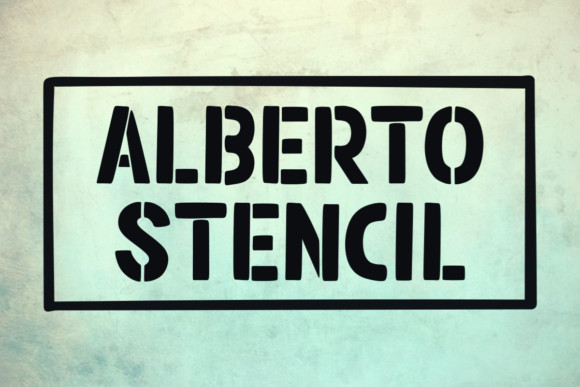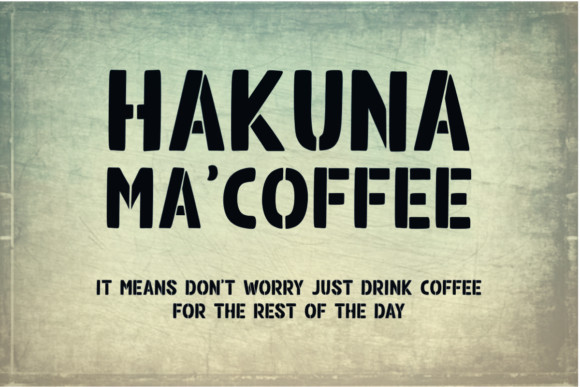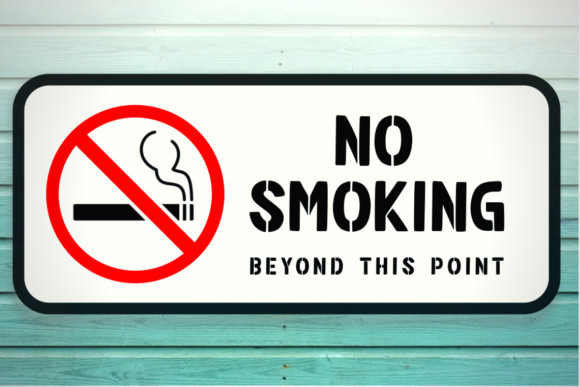
Alberto Stencil Font
Alberto Stencil is a modern and cool display font. It has beautifully rounded characters and a neat style that can elevate the look of any creative project!